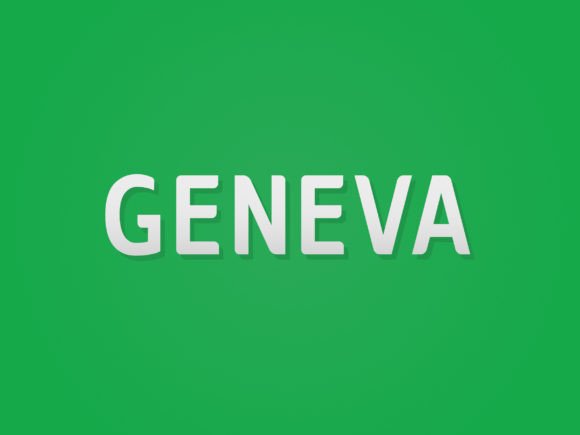
Geneva Font – Download Free Font: The Geneva Font is a bold, versatile, and functional typeface originally designed with sports lettering in mind. Built on a clean sans serif foundation, it’s widely recognized for its strong presence and excellent readability, even from a distance. This makes it a natural fit for football, soccer, basketball, and other sports jerseys, where player names and numbers need to be clear to fans and viewers alike.
But Geneva’s design goes beyond sports. Its clean lines, balanced letterforms, and multiple numeral styles give it flexibility for branding, posters, signage, and even digital graphics. Whether you’re designing for the field or for a marketing campaign, Geneva has the adaptability to look sharp and professional in any setting.
Key Features of Geneva Font
Seven Numeral Styles
One of Geneva’s standout features is its variety of numeral designs. This is especially useful for sports teams who want to customize jersey numbers or for designers looking to give each project a unique visual flair. -
Sans Serif Base
With a sans serif typeface as its foundation, Geneva achieves both modernity and clarity. The simple structure ensures that text remains readable in small and large formats alike. -
Optimized for Sports
Geneva’s strong, sturdy characters hold their shape well, even at long viewing distances or when printed on textured fabrics like sports jerseys. -
Versatility Beyond Sports
While designed for athletic contexts, Geneva works equally well in other environments, such as signage, digital banners, packaging, and apparel branding.
Where to Use Geneva Font
Geneva’s clean style and flexibility make it suitable for a wide range of applications:
Sports Jerseys and Uniforms
Perfect for player names, numbers, and team slogans—its legibility stands out on the field or court. -
Team Branding and Logos
Geneva’s bold structure looks professional for team identities and sports-related merchandise. -
Event Posters and Flyers
Works well for tournaments, sports festivals, and promotional material that needs high-impact lettering. -
Signage
From stadium signage to wayfinding boards, Geneva’s clarity makes it ideal for quick readability. -
Non-Sports Projects
Its clean sans serif style also fits into modern advertising, product packaging, and corporate designs.
Tips for Using Geneva Font
Pair with Contrasting Fonts
Use Geneva for headings or jersey numbers, and combine it with a softer serif or clean geometric sans serif for body text. -
Experiment with Numeral Styles
The seven numeral variations give you plenty of room to customize your design while staying within the same family. -
Use Color Strategically
Bright, contrasting colors make Geneva pop in sports jerseys, while more muted tones can make it suitable for professional or minimal designs. -
Mind the Scale
Geneva excels in larger text applications, so use it for headlines, labels, and high-visibility elements rather than small paragraph text.
1. What makes Geneva Font different from other sports fonts?
Its variety of numeral styles sets it apart, allowing for customization without switching fonts. It also retains a cleaner, more modern sans serif feel than traditional block sports lettering.
2. Can I use Geneva Font for non-sports projects?
Yes. While it was designed for jerseys and sports branding, its clean structure works well for modern logos, banners, and even web design.
4. Does Geneva Font include lowercase letters?
Most sports-focused versions of Geneva include both uppercase and lowercase letters, although uppercase is most commonly used for jersey designs.
5. How many numeral styles does Geneva have?
Geneva comes with seven different numeral styles, giving designers a variety of looks for numbers while maintaining consistency in overall design.
Final Thoughts
The Geneva Font is more than just a sports typeface. Its seven numeral styles, strong sans serif design, and high readability make it a top choice for athletic branding and beyond. Whether you’re outfitting a team, creating event materials, or designing for a completely unrelated industry, Geneva delivers clarity, strength, and flexibility in one package.
If you’re looking for a font that can make both the scoreboard and the billboard look professional, Geneva is worth adding to your design toolkit.